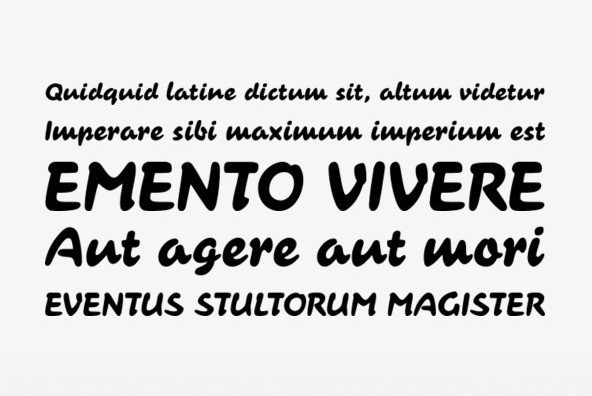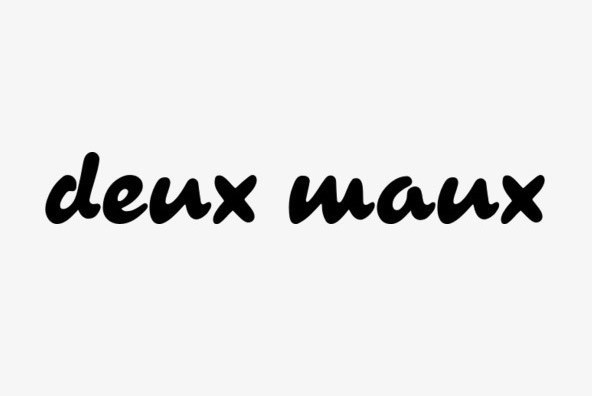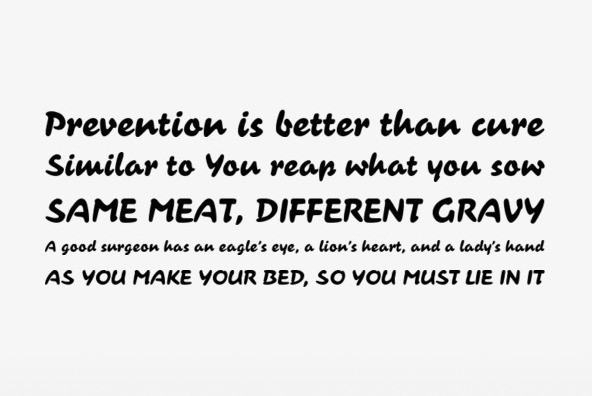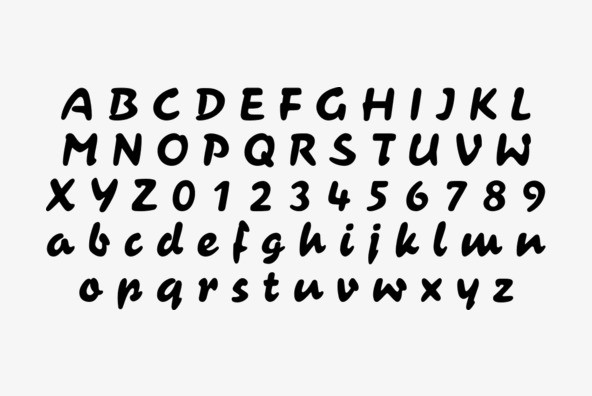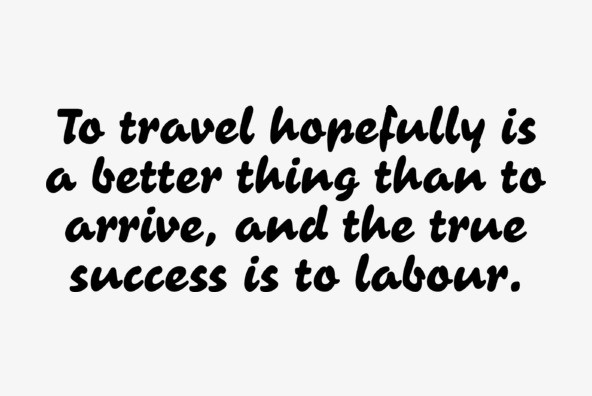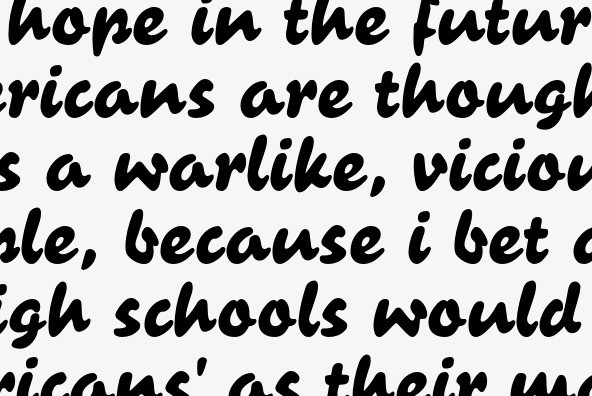
Contact Pro
Foundry: RMU Typedesign
Based on the letterforms of Matheis' Contact, this font was completely redrawn, digitized and extended to include Central European glyphs.